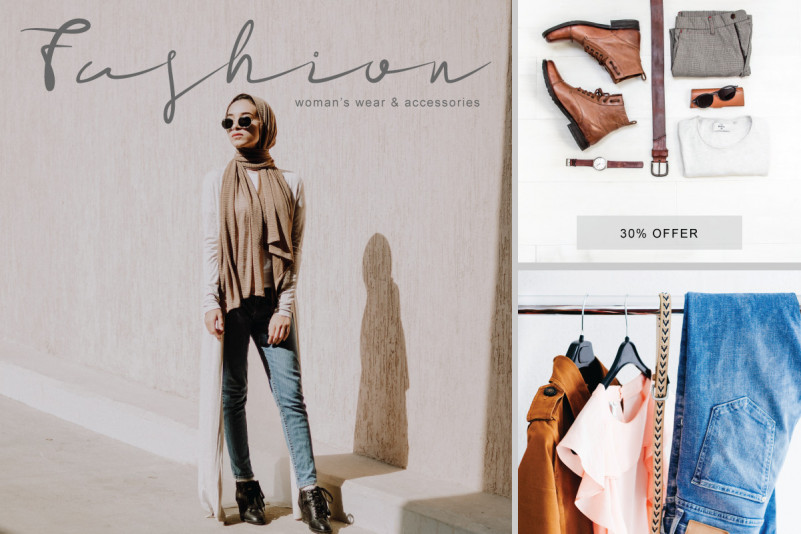
ResscuDoffcu Handwritten Font
Introducing ResscuDoffcu Handwritten Script Font, is a handwritten font in the style of a signature, simple but still elegant.